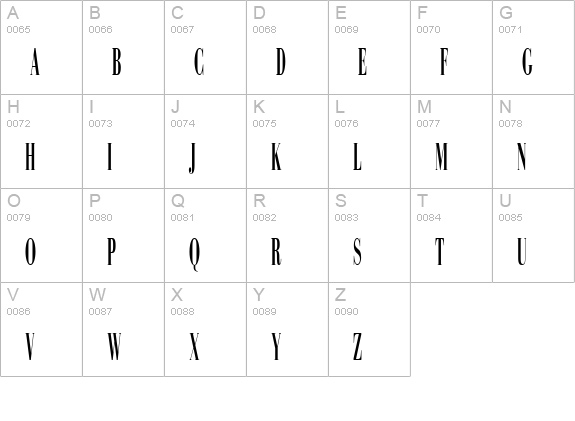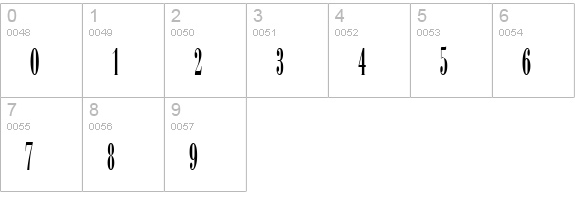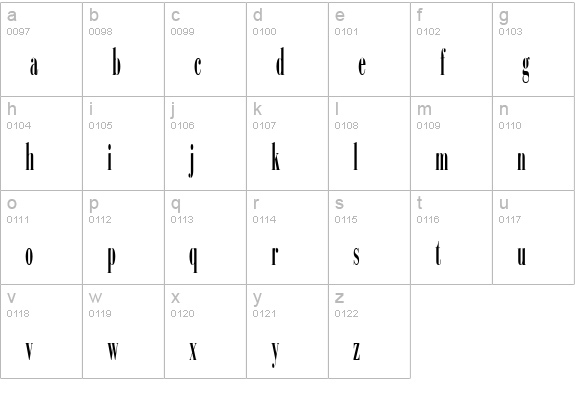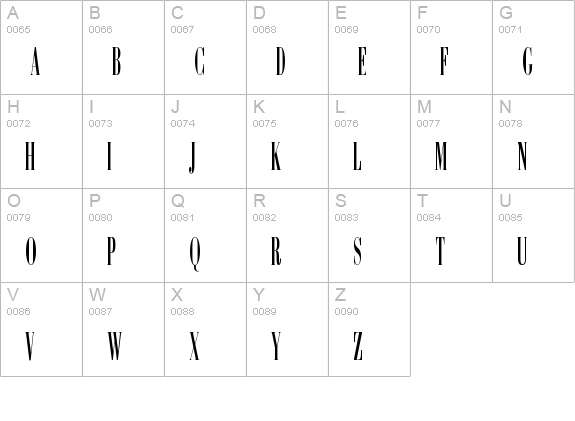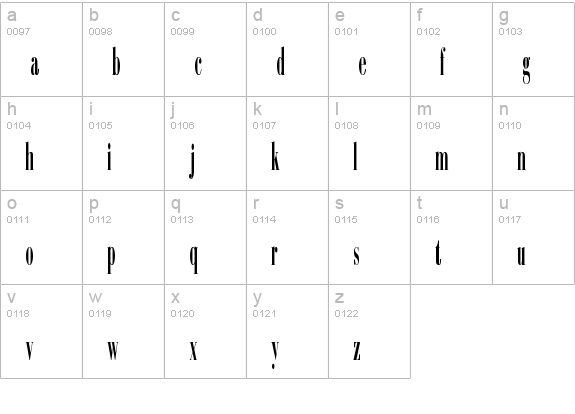
Sinema Display SSi Extra Condensed Font Details
Sinema Display SSi Extra Condensed is a distinctive, condensed-width variant in the Sinema typeface family \xE2\x80\x94 well suited to design and typography projects.
Introducing Sinema Display SSi Extra Condensed font - an elegant and versatile typeface that will elevate any design project to new heights. With its refined lines and sophisticated curves, this font exudes a sense of modernity and professionalism. Sinema Display SSi Extra Condensed font is perfect for a wide range of applications, whether it's creating stunning headlines, designing eye-catching logos, or crafting captivating advertisements. Its condensed form allows for maximum impact, ensuring that your message is delivered with style and clarity. But what sets Sinema Display SSi Extra Condensed font apart is that it is free. That's right - you can freely download this incredible font at FontsMarket.com. Now, you can enjoy all the benefits of this premium typeface without breaking the bank. With Sinema Display SSi Extra Condensed font, your designs will stand out from the crowd, making a lasting impression on your audience. Its timeless elegance and bold presence will make any text come alive, adding a touch of sophistication to your projects. So why wait? Take advantage of this amazing opportunity and download Sinema Display SSi Extra Condensed font today, absolutely free, at FontsMarket.com. Unlock your creativity and create visually stunning designs that leave a lasting impact.